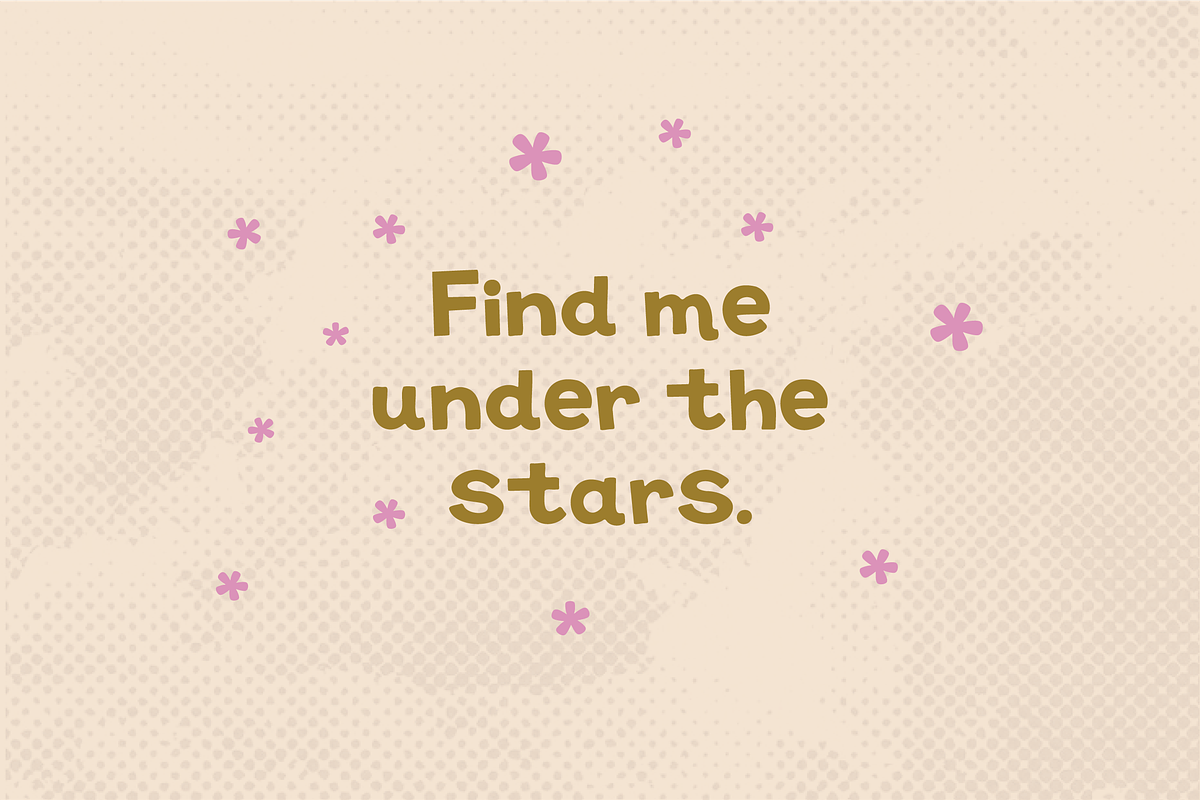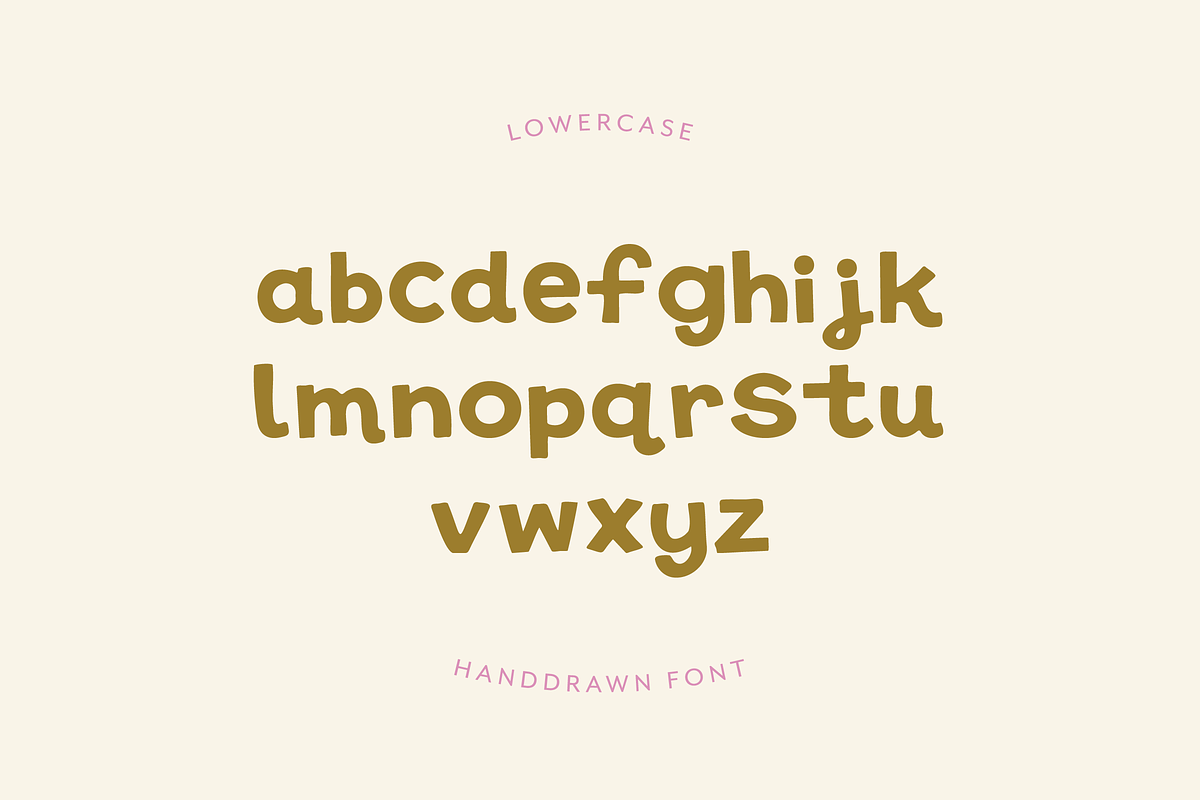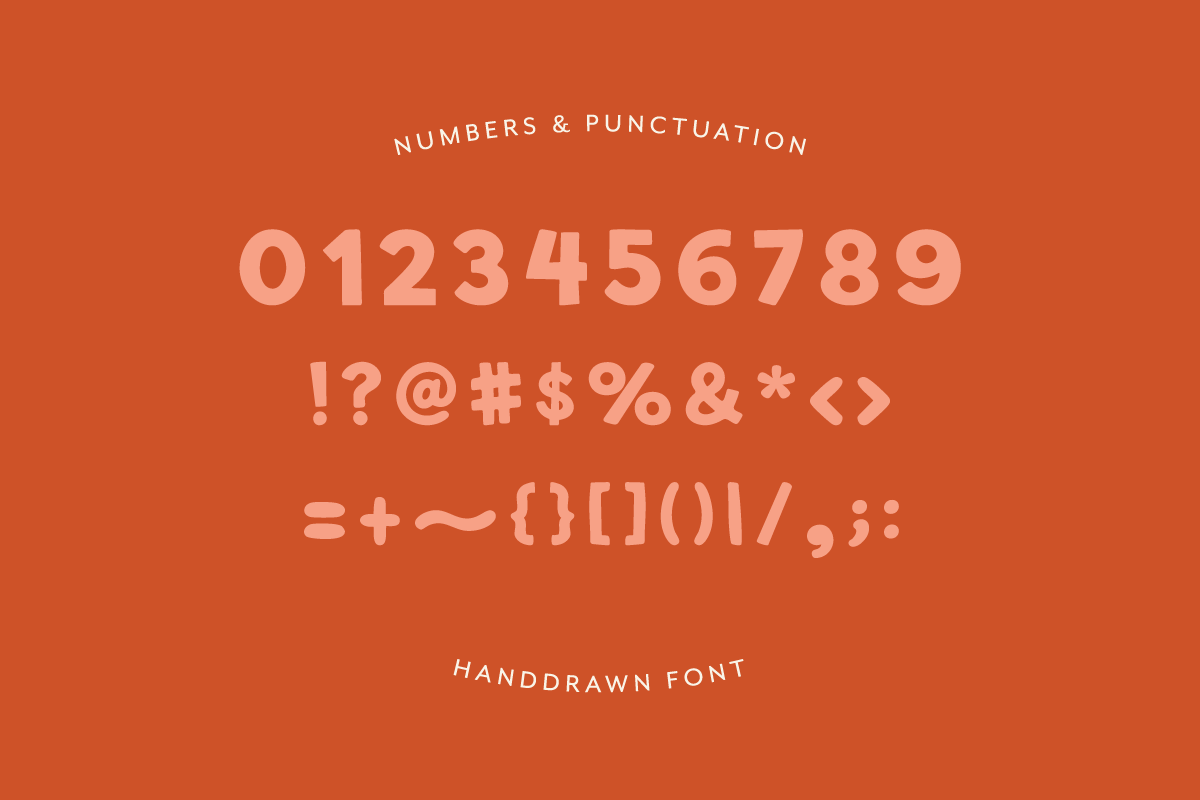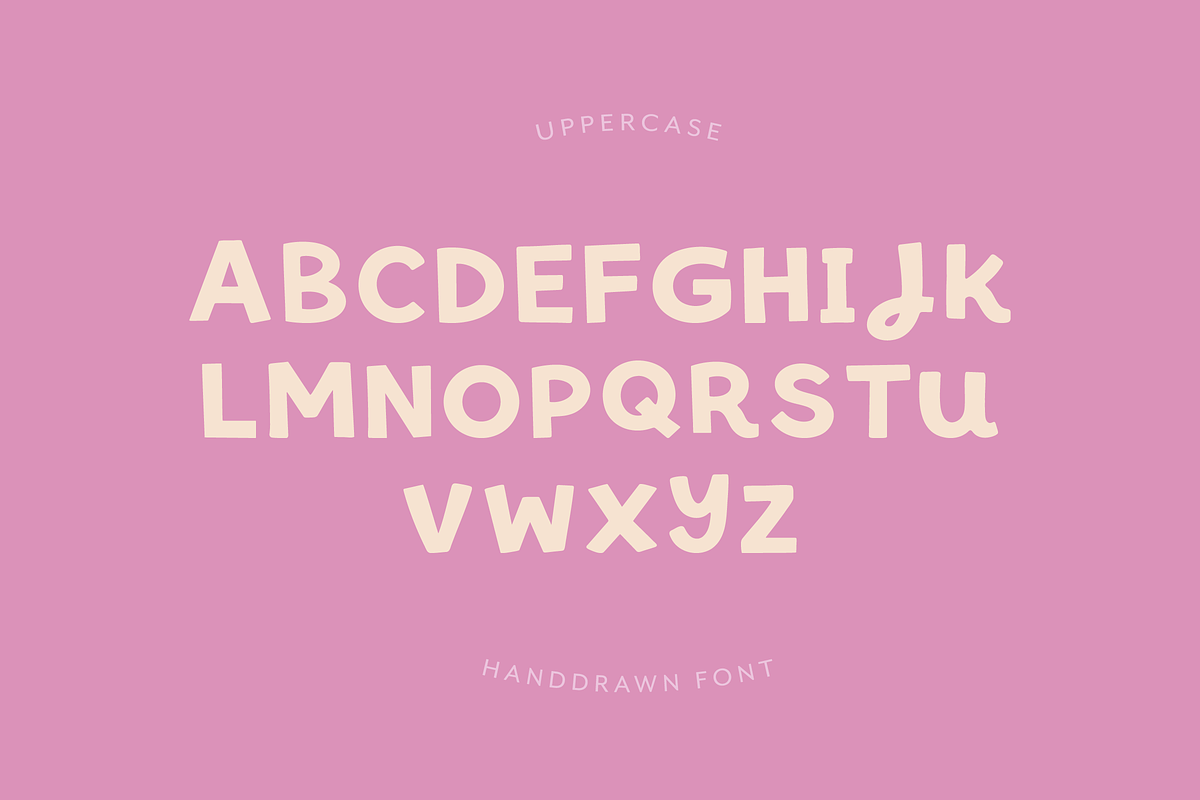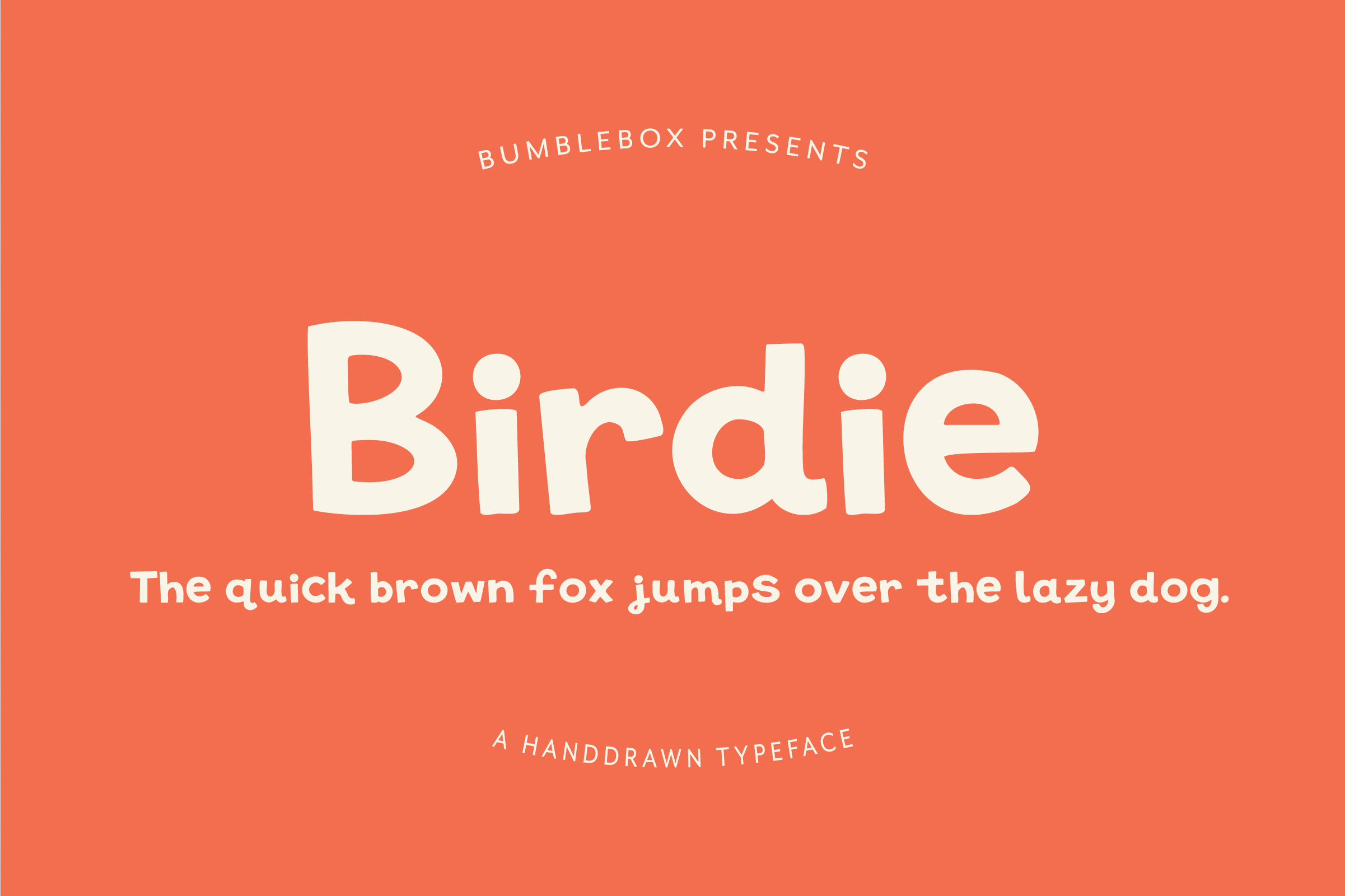
Birdie - Handdrawn Display Font
Meet Birdie, a playful hand-drawn display font with a cheerful retro spirit. Soft curves, slightly wobbly lines, and quirky letterforms give Birdie a warm, handmade feel that instantly adds personality to your designs.
Designed to feel friendly and approachable, Birdie captures the charm of imperfect lettering while still remaining clean and highly readable. The subtle variations in shape give it that authentic hand-lettered look, perfect for projects that need a little joy and character.
Birdie shines in designs that call for a fun, relaxed vibe. Use it for everything from bold headlines to playful branding.
Perfect for
Branding and logos
Stickers and merchandise
Children's products
Packaging and labels
Greeting cards
Posters and quotes
T-shirts and apparel
DIY and craft projects
Uppercase letters
Lowercase letters
Hand-drawn display style
Clean, playful shapes
Easy to mix with script or serif fonts
Birdie brings a lighthearted, handmade touch to any creative project. If you're looking for a font that feels friendly, modern, and a little whimsical, Birdie is ready to take flight in your designs.